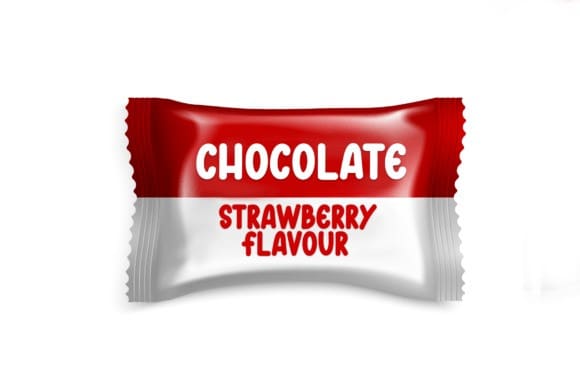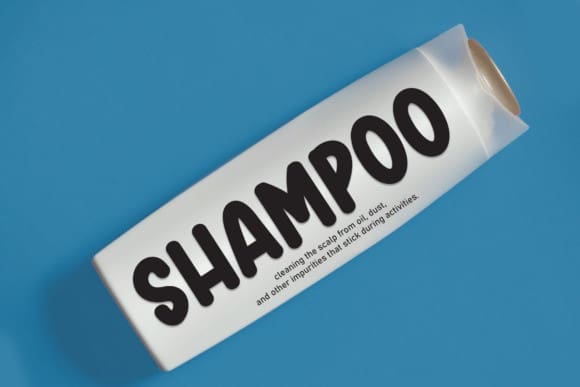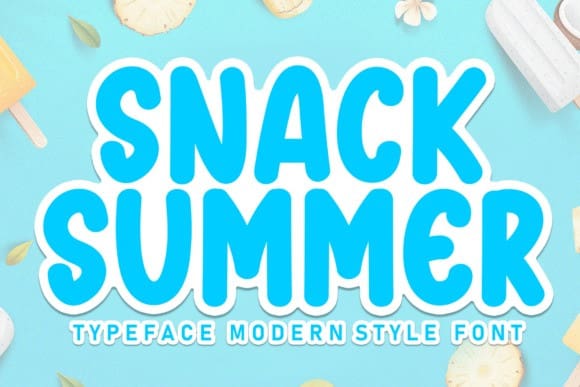
Snack Summer Font
Snack Summer Font, the newest font perfect for wall displays, wedding invitations, social media post logos, advertising, product packaging, product design, labels, photography, watermarks, invitations, stationery and any project that requires delicate handwriting.